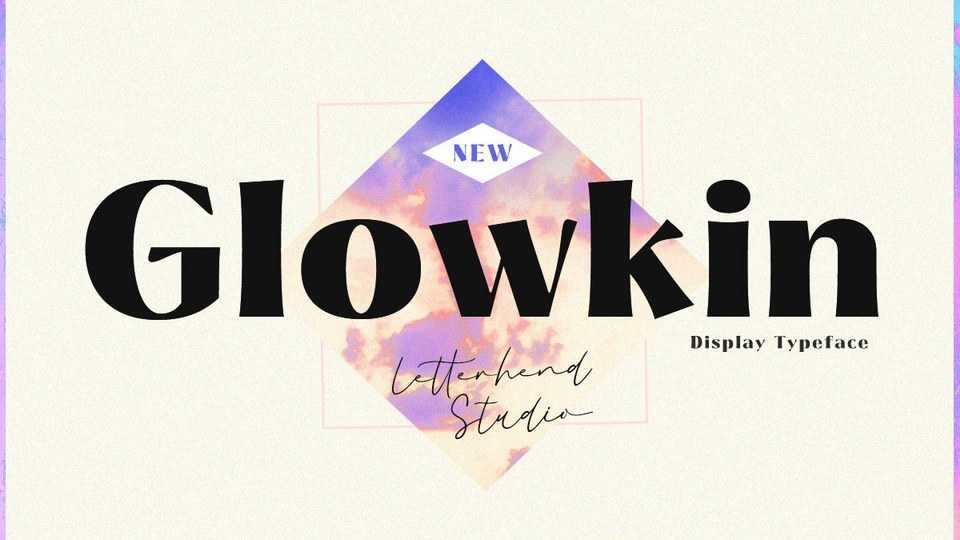
Download Glowkin font, a sophisticated and bold display typeface with modern looks and vibe. Glowkin is perfect to be applied to invitations, labels, logos, magazines, books, greeting and wedding cards, packaging, fashion, and so much more.